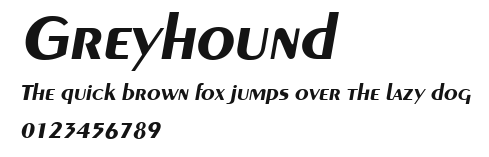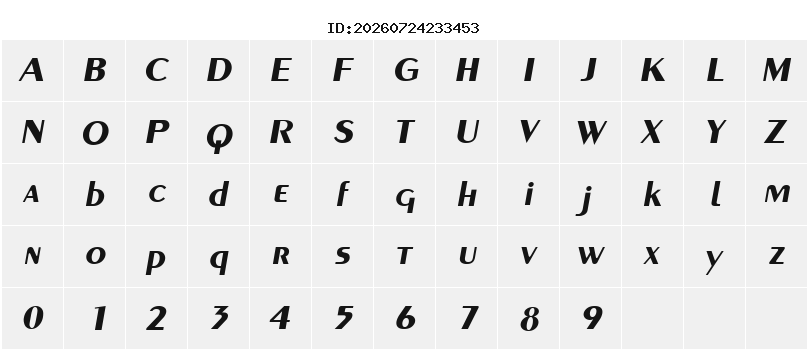
Greyhound Preview
• Font Name: Greyhound
• Font Style: BoldItalic
• Font ID: SoftMaker Software GmbH Greyhound-BoldItalic
• Full Font Name: Greyhound-BoldItalic
• Version: Version 1.0 27-08-2002
• PostScript Name: GreyhoundBoldItalic
• Character Count: 206
• Designer: SoftMaker Software GmbH
• Manufacturer: SoftMaker Software GmbH
About Greyhound.ttf
Greyhound.ttf is a modern, elegant sans-serif font designed for ultimate readability and visual harmony. Perfect for branding, headlines, web design, and print materials.